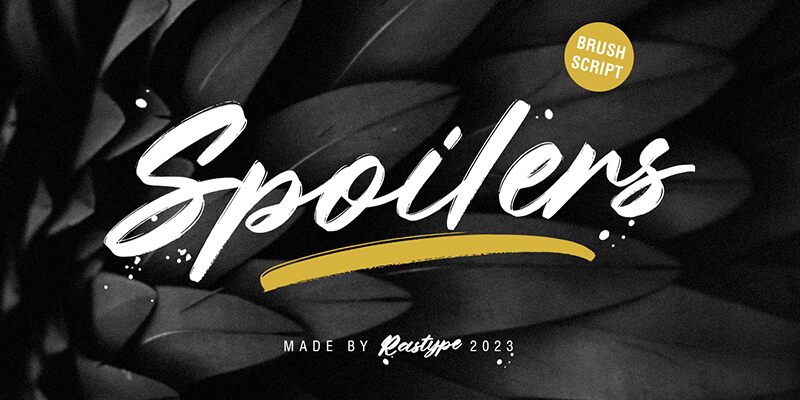
SpoilersUnderline
Spoilers Underline font by Rastype is an expressive, bold brush typeface filled with artistic energy. With its modern calligraphy style, Spoilers brings an organic and fluid visual to any design. It communicates authenticity and freedom by joining prominent dabs with curved, long strokes. From posters to advertisements and product labels, this free font is a true eye-catcher.
With its powerful display that’s suitable for both small scale and large scale usage, it can be used for book covers and album art designs or inserted in social media posts like Instagram quotes or stories. It can also make an appearance in greeting cards projects by adding a personalized touch to them.